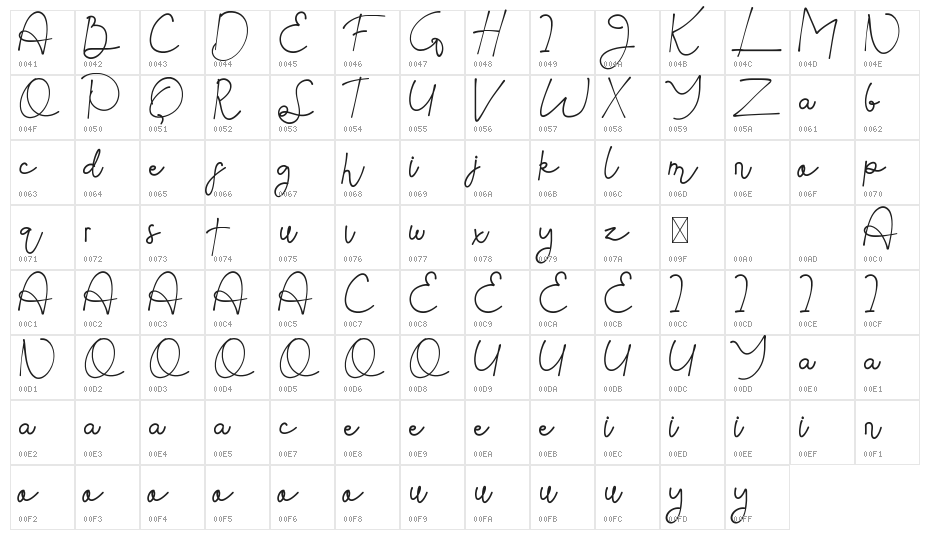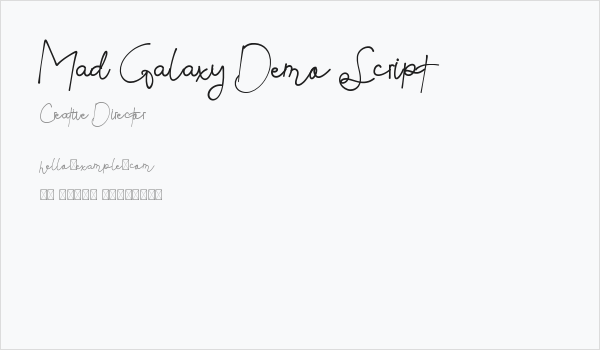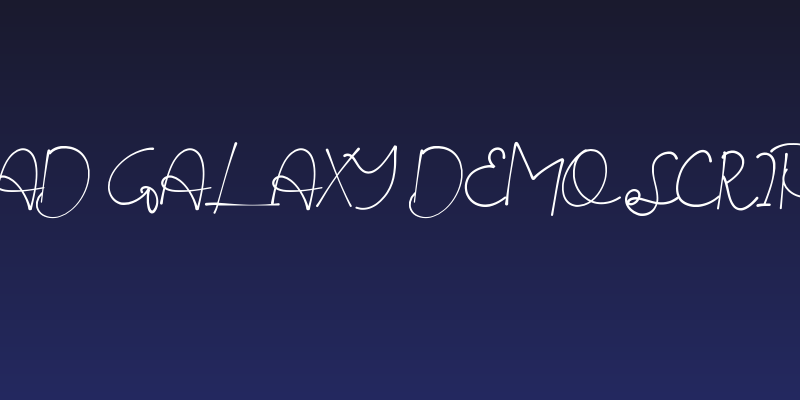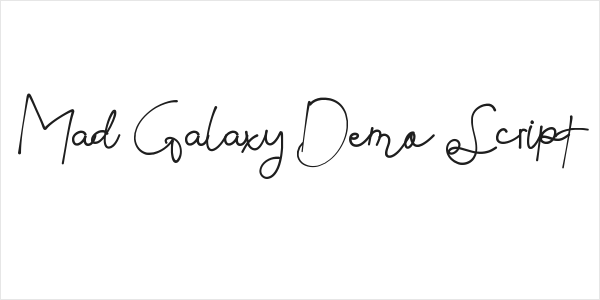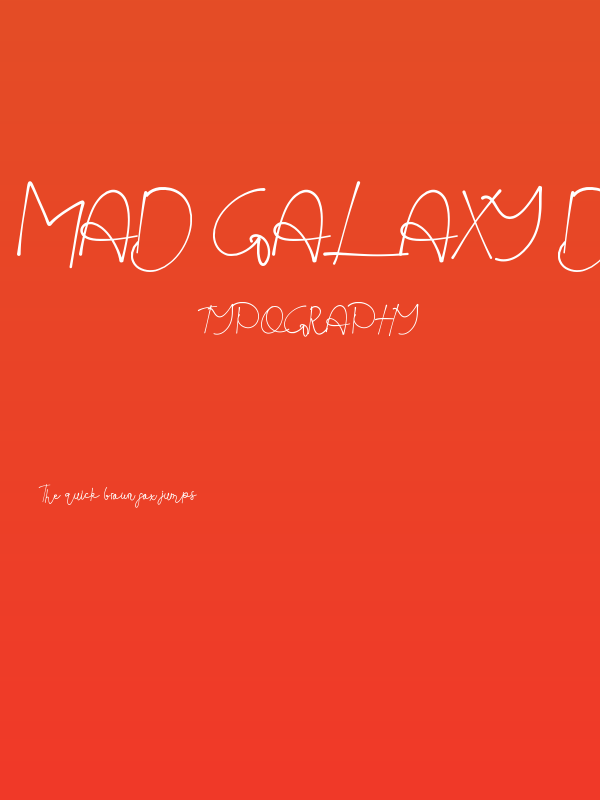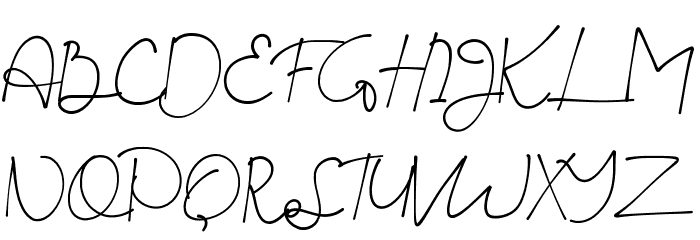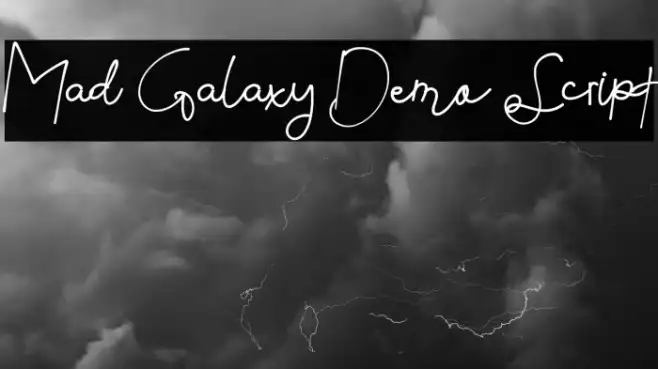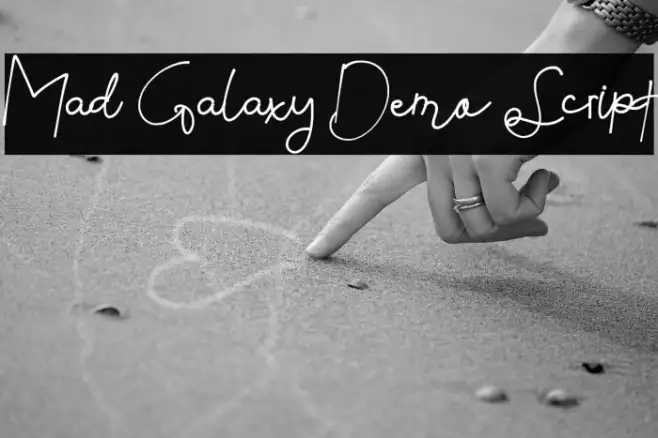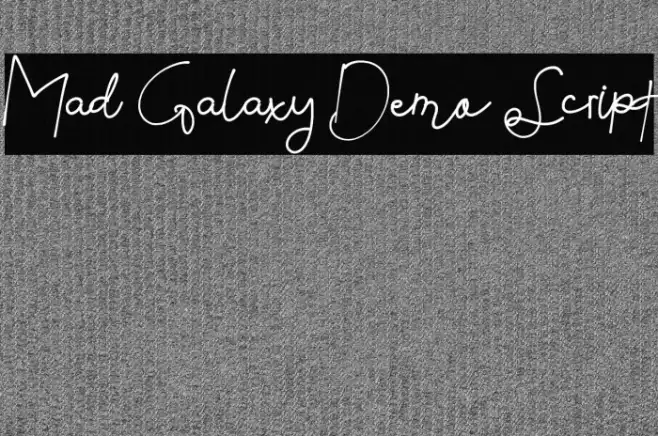
Mad Galaxy Demo Script Font
Mad Galaxy Demo Script Description
This font features a whimsical and flowing script style that combines both uppercase and lowercase letters with a playful, handwritten appearance. The characters are connected with smooth, looping strokes, giving it a dynamic and lively feel. The uppercase letters maintain a consistent height, while the lowercase letters vary in size, adding to the casual and informal aesthetic. The font's unique style is characterized by its fluidity and the way the letters seamlessly connect, making it ideal for creative and artistic projects. The overall design is both elegant and approachable, suitable for a variety of uses where a personal touch is desired.